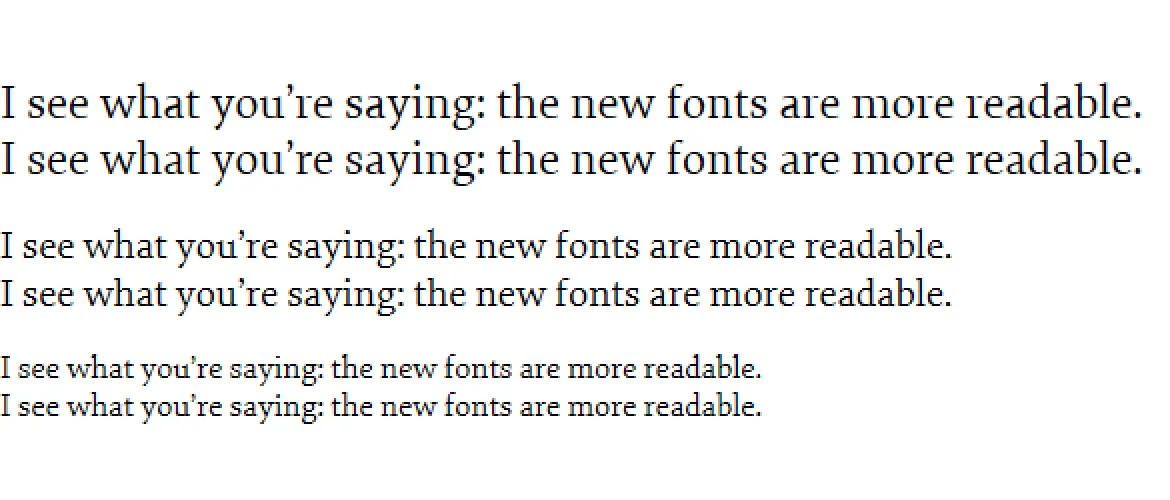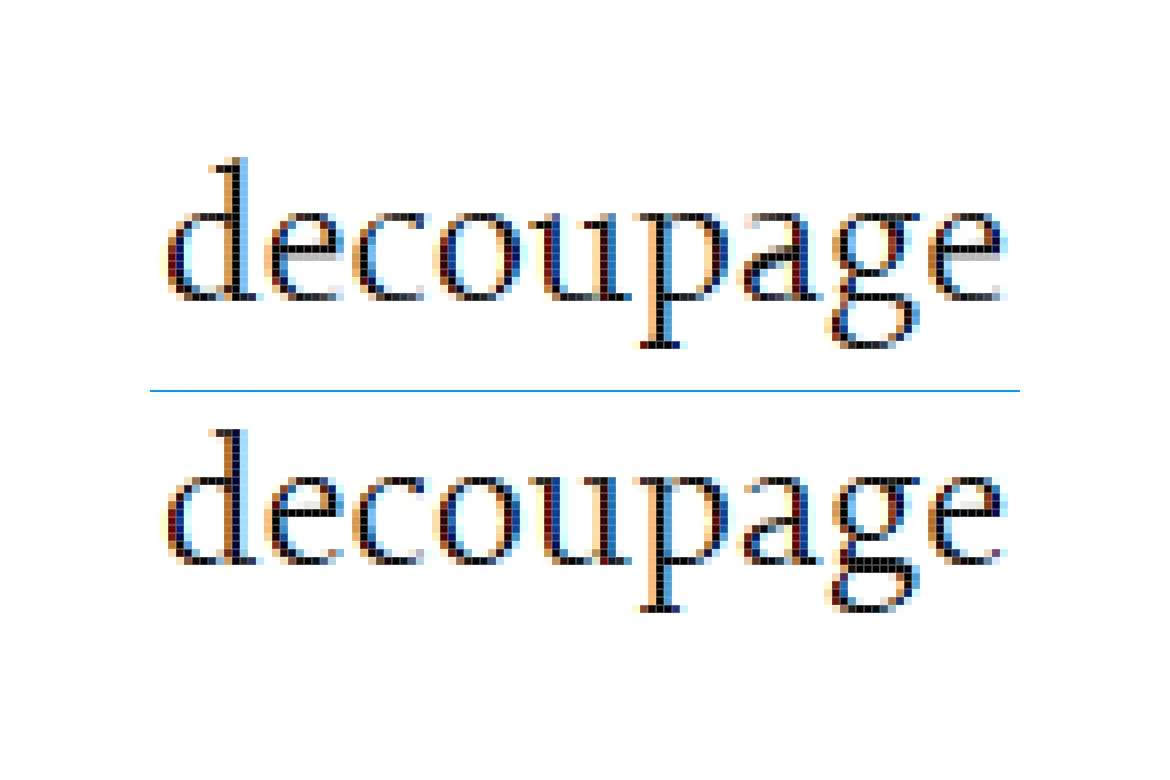
Improved Webfont Rendering, Round Two
A magnified comparison of Elena Web that was auto-hinted and manually-hinted.
More good news on the rendering front. As we promised last May when we improved Colfax Web, Klavika Web, and Klavika Condensed Web, we had other webfonts to refine. And in September we updated several other families with new, manually-hinted versions.
Elena, each Bryant family, and Stratum 1 & 2 have all been significantly improved for screen rendering. These new fonts eliminate many of the irregularities that stem from a browser and operating system’s translation of a font’s design to screen. Now, the design of these typefaces is upheld more consistently when viewed in a browser and readability — a paramount concern — is enhanced.
Elena Web, Before & After
Elena Web, auto-hinted and manually-hinted
The auto-hinted (top) and manually-hinted (bottom) versions of Elena Web rendered at 24, 20, and 16 pixels by IE 11 in Windows 8.1. A few noticeable improvements: at 24px, the contrast of the ‘a’ is fixed; at 20px, the ‘g’ is truer to the original design; and at 16px, the loopy ‘e’ is straightened.